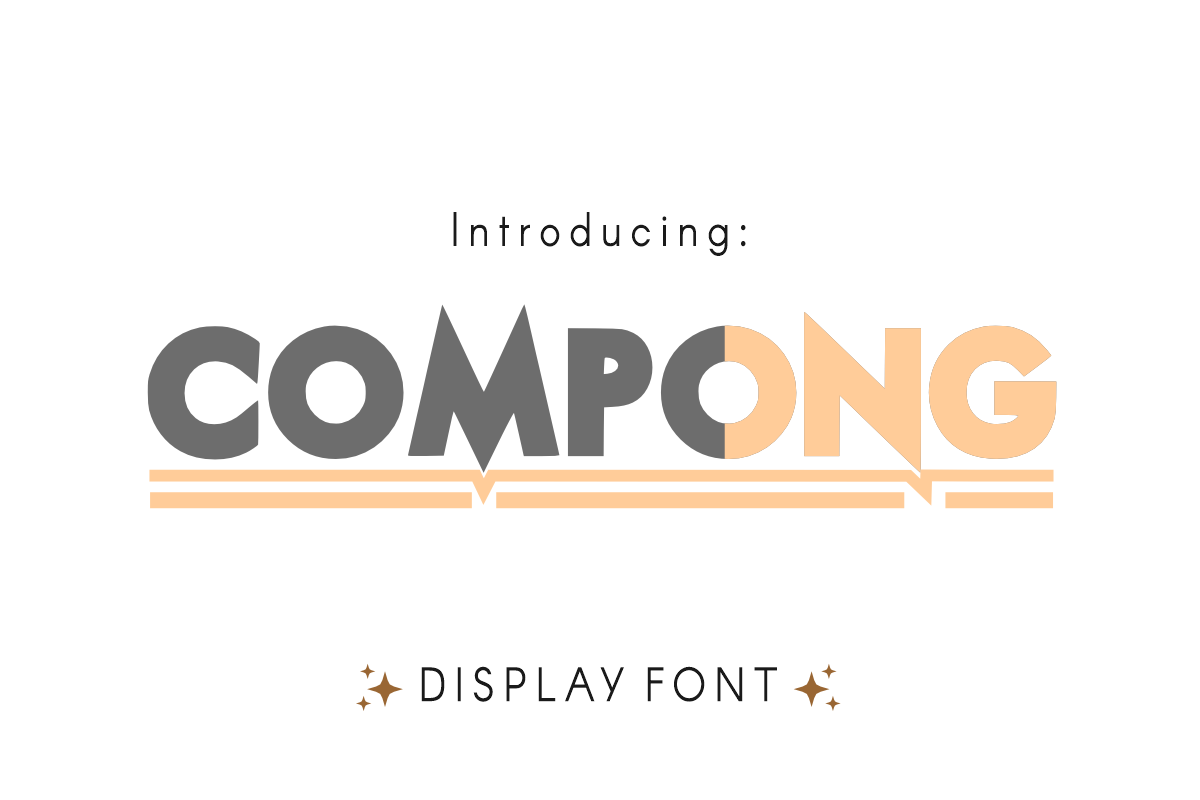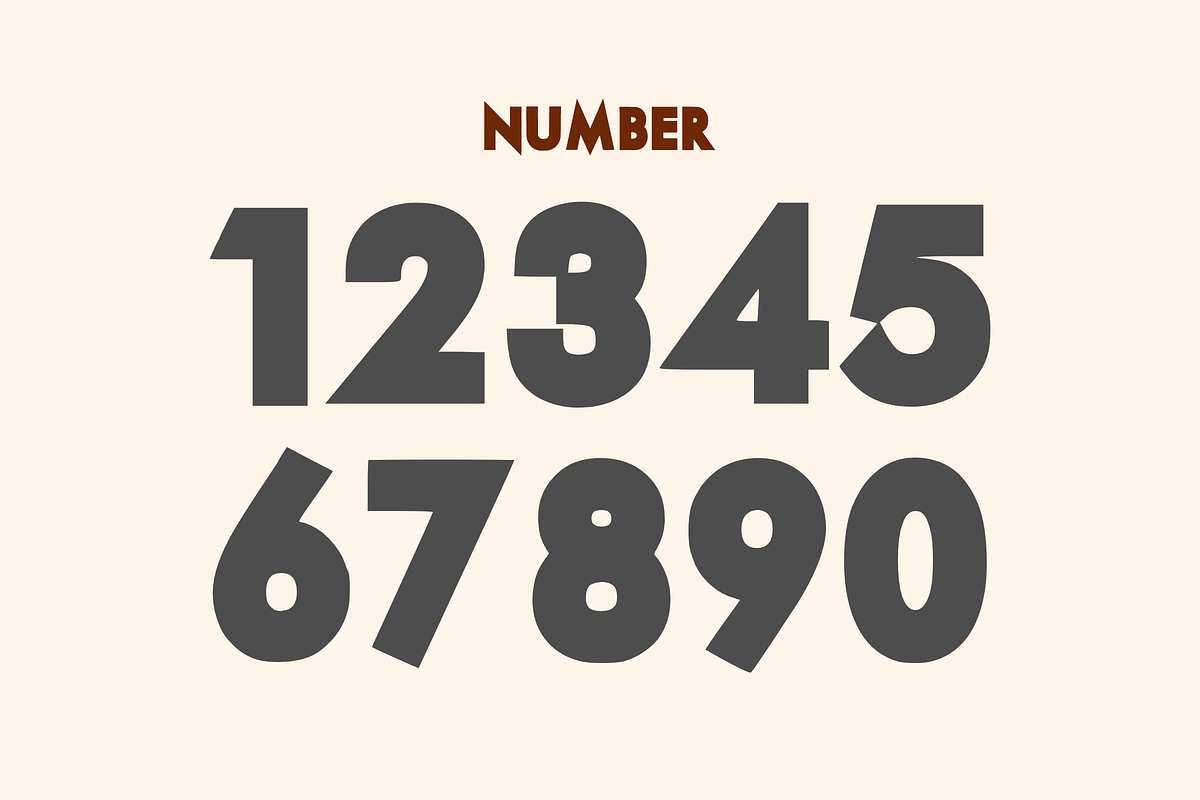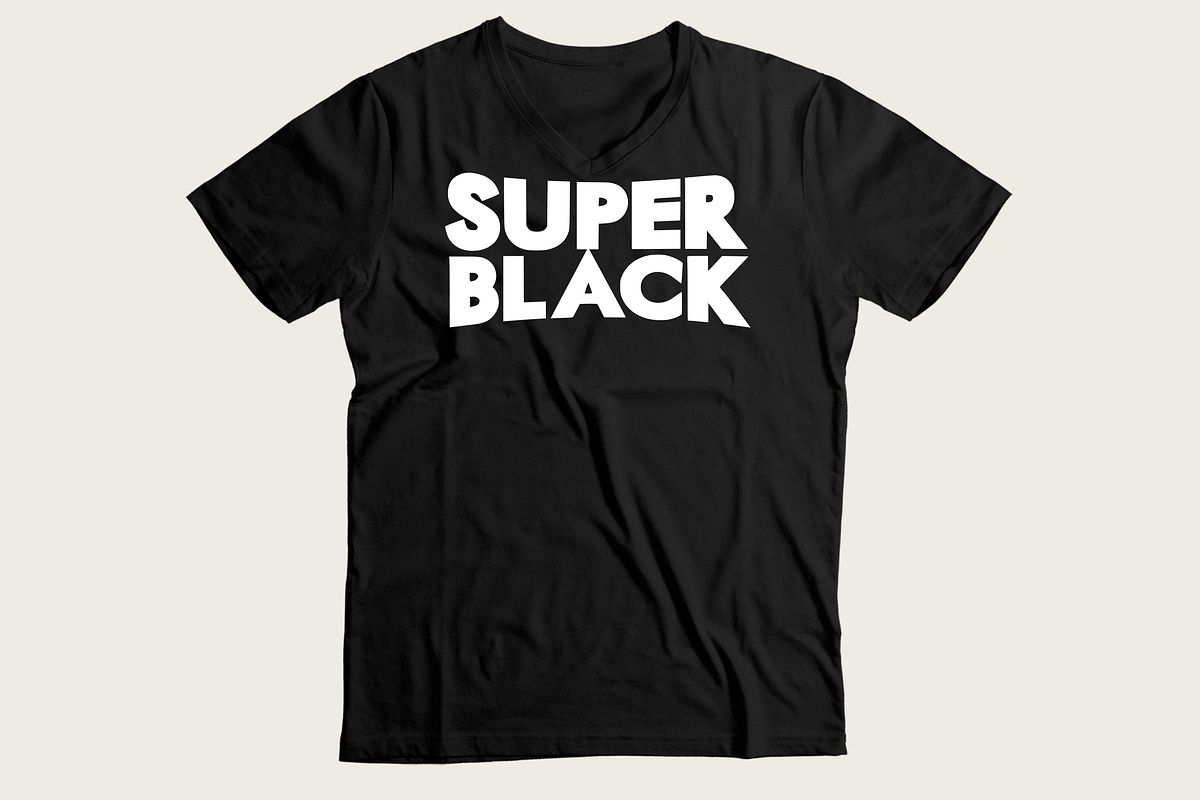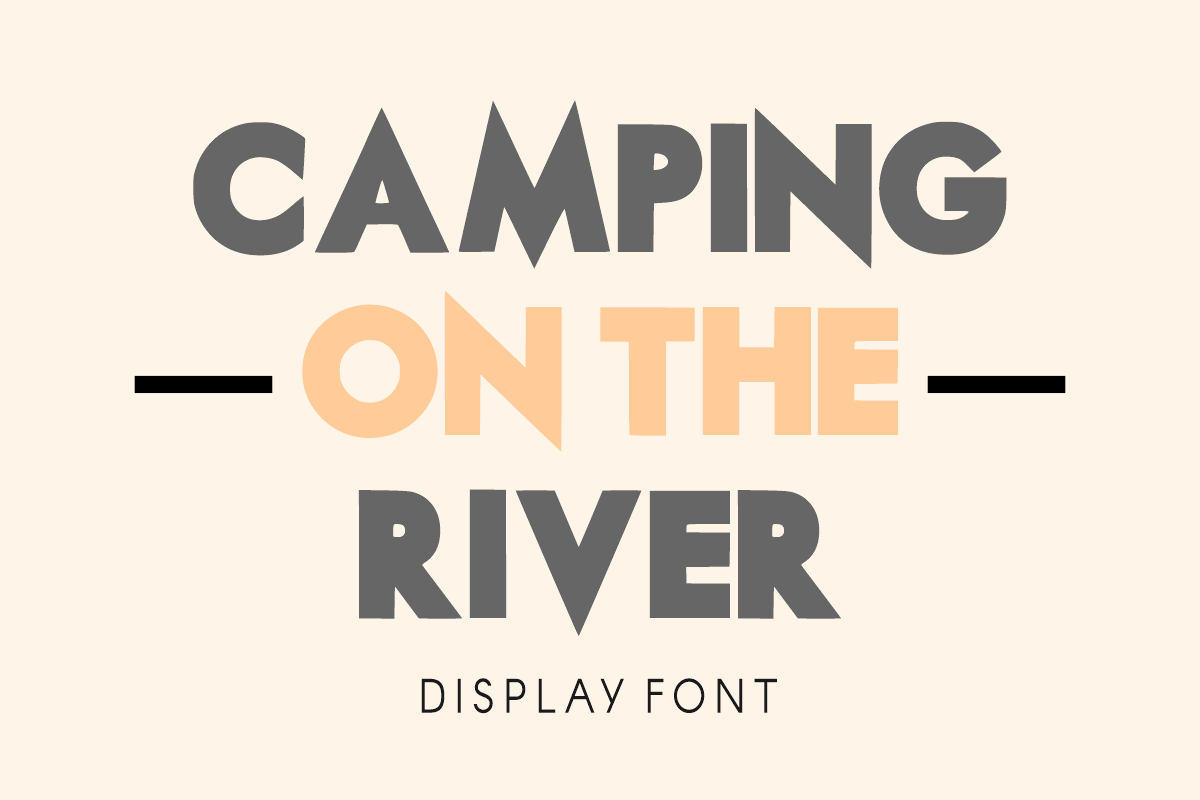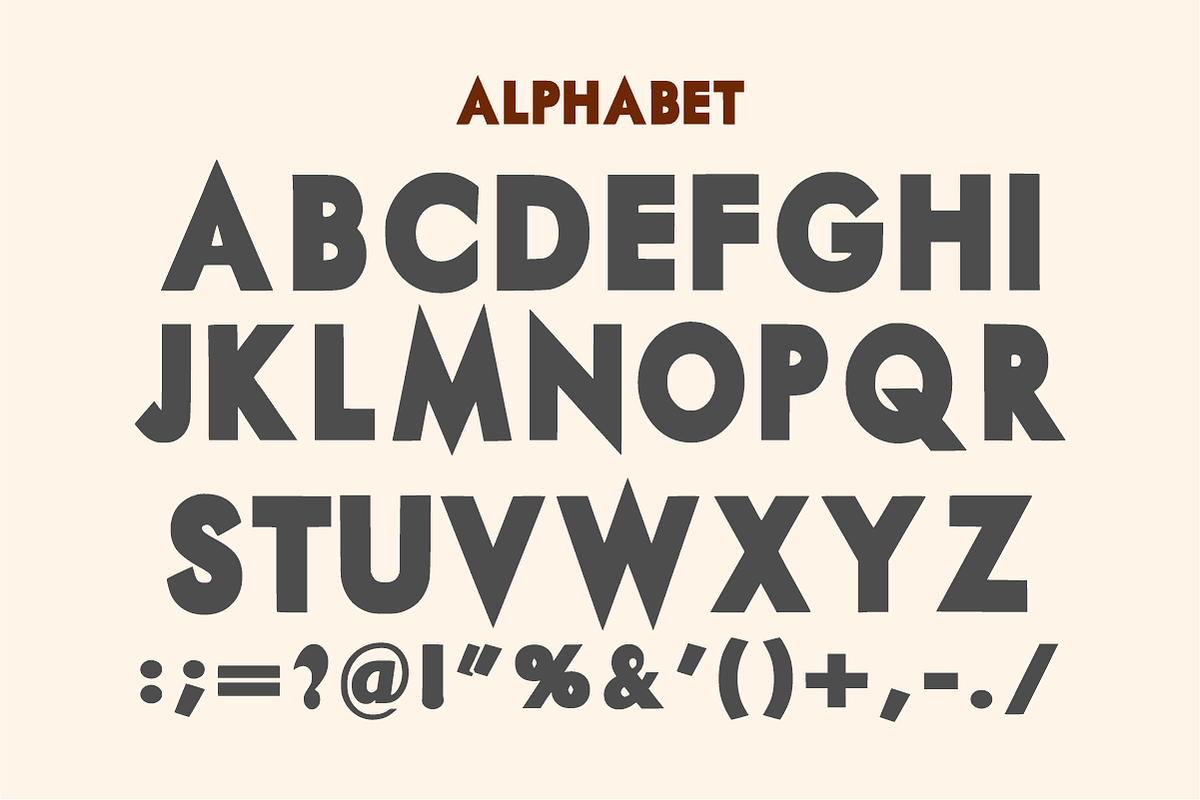
Compong Font - Logo Font Types
Discover the “Compong” font—a versatile embodiment of modern sophistication and elegance. Engineered with utmost precision, this typeface gracefully paves the way for a striking corporate logo design, effortlessly implanting a memorable impression. However, it doesn’t stop at corporate boundaries—its adaptability makes it an ideal choice for an array of creative projects. Compong can be used for digitally designing intricate elements, from tastefully printed t-shirts and enchanting mug designs to vibrant stickers and compelling posters. It’s a go-to font solution for your every creative whim.